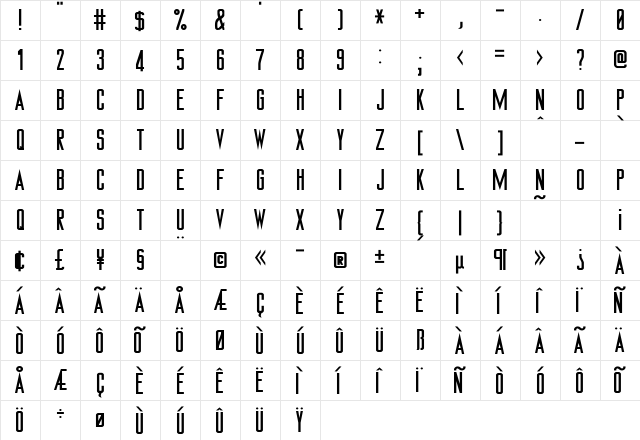
TNG Monitors Plain
Design Context for TNG Monitors Typeface
TNG Monitors offers clean, dependable letterforms without strong stylistic allegiance, making it a practical choice for designers who need flexibility.